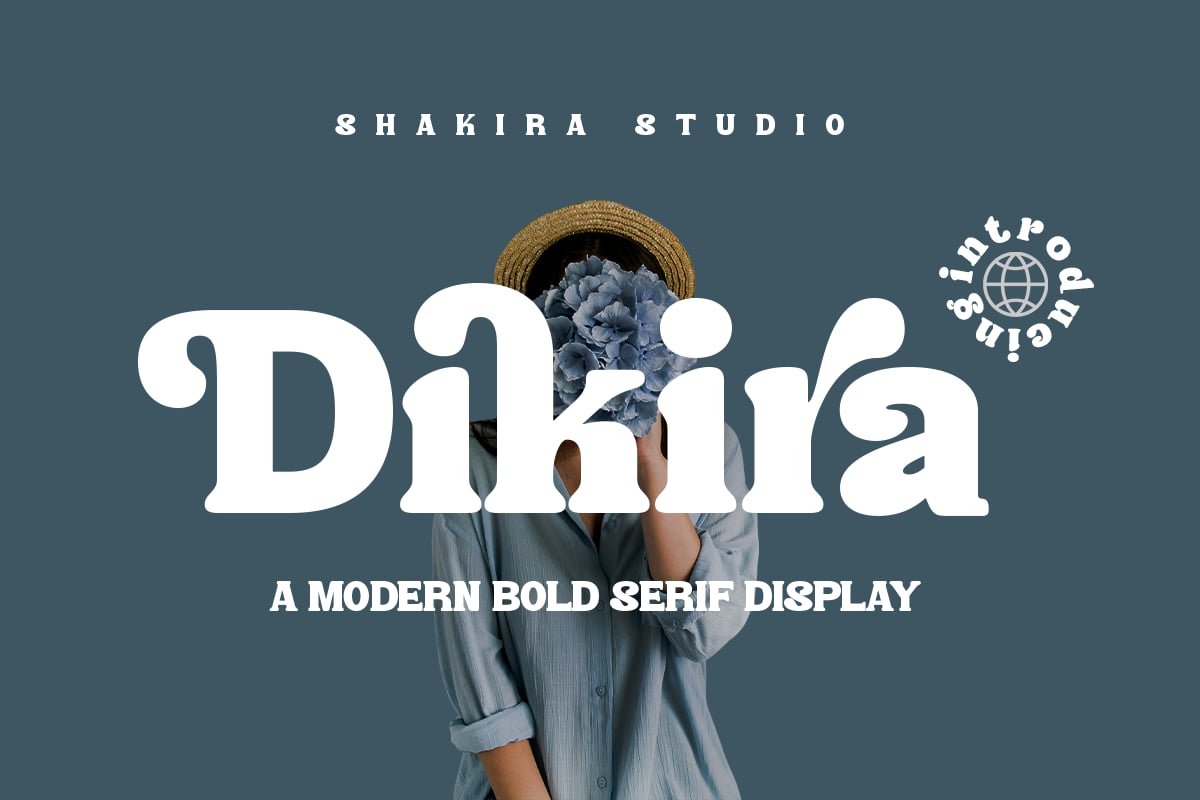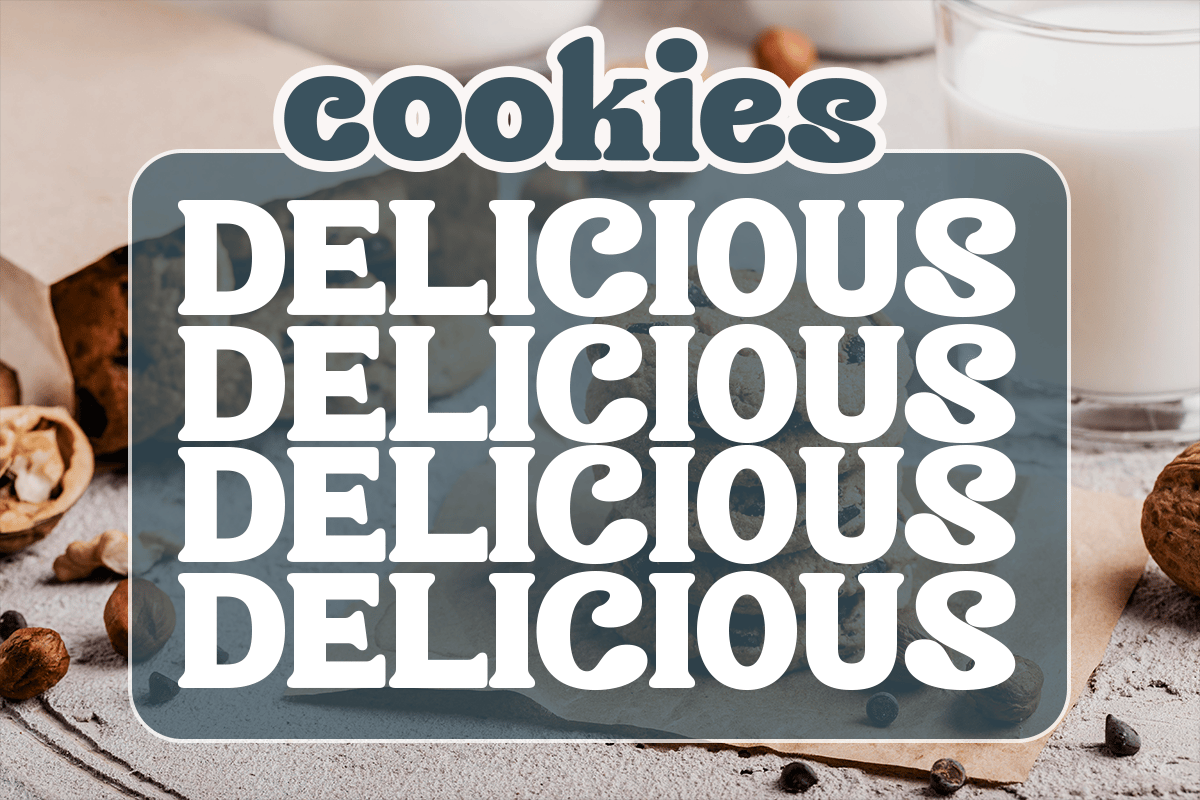
Dikira – Bold Modern Retro Serif Logo Display Font
Dikira is a fat serif with the corners sanded off. Serifs are short and blunt, bowls are round, and letters such as k and r have little ball terminals. Repeated four times in the specimen, DELICIOUS looks like a 1970s cookie tin, which is exactly the mood it sets.
Shakira Studio released it in October 2025. The paid set has Regular and Italic styles with alternates, ligatures and multilingual support in OTF, TTF and WOFF. The free file here is a single OTF. Thanks to its weight, Dikira prints well on kraft paper and dark backgrounds where thin fonts disappear.
Best uses for Dikira
• Bakery, cookie and dessert brands
• Food and drink packaging
• Retro posters and record sleeves
• Café chalkboards and menus
• Logos for small shops and markets
Pair Dikira with something lighter. Jost gives a clean contrast for menus and prices. Nunito keeps the friendly feel in body text. For a second display face, Shrikhand adds a matching retro italic flavour.
What free font looks like Dikira?
Young Serif and Fraunces in its heavy, soft settings are open-licence fonts with a similar retro serif feel.
Does Dikira have an italic?
Yes, the commercial family includes Regular and Italic. The free download on this page is one OTF file.